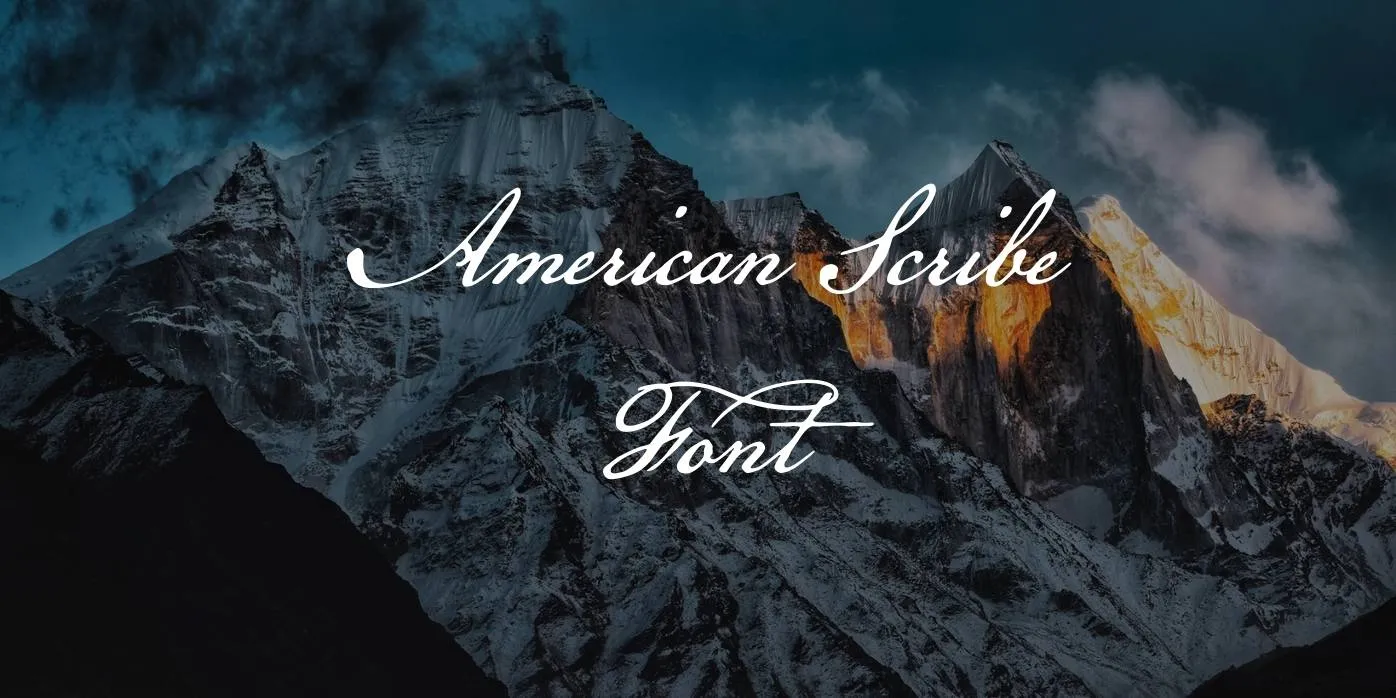
American Scribe Font
Here, we present American Scribe Font that belongs to the script family. This family was developed by Brian Willson. This glorious typeface is the work of American type designer, Brian Willson. This marvelous Typeafce package includes two fonts: American Scribe and American Scribe Bold.
American Scribe Typeafce was designed to be used for various purposes such as headlines, displays, logos, and short texts. The design of this font is based on the typefaces used in the 18th and 19th centuries. This gorgeous font comes with a set of discretionary ligatures which can be accessed by using the OpenType feature. The copy and paste function of this family is very classic.